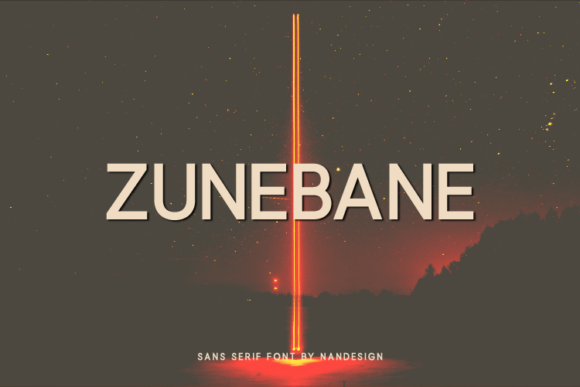
Introducing the Zunebane Font, the ultimate font for crafting visually stunning interfaces and user experiences. This clean and modern sans serif typeface empowers you to create designs that captivate and engage your users.
Whether you're designing eye-catching logos, elegant wedding invitations, or compelling marketing materials, Zunebane will elevate your creations. Its versatility shines in headings, t-shirts, letterheads, and countless other applications.
Imagine your designs leaping off the screen with the clean lines and sleek curves of Zunebane. It's the perfect font for conveying clarity, precision, and a touch of sophistication.
With Zunebane in your arsenal, you'll gain the power to:
- Design captivating websites and mobile apps that effortlessly guide users through their journeys.
- Create unforgettable branding that sets your business apart from the competition.
- Craft printed materials that leave a lasting impression, from wedding invitations to corporate presentations.
Join the countless designers who have embraced Zunebane for its elegance, readability, and versatility. Experience the joy of creating designs that inspire, inform, and connect with your audience.